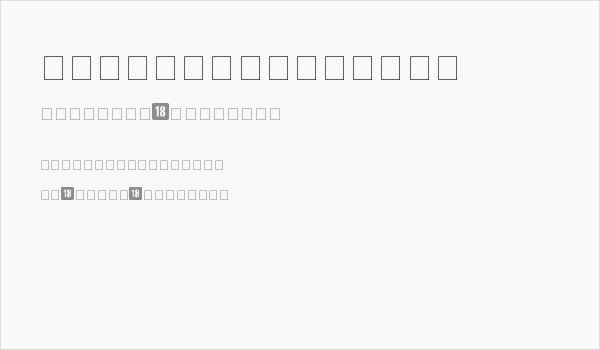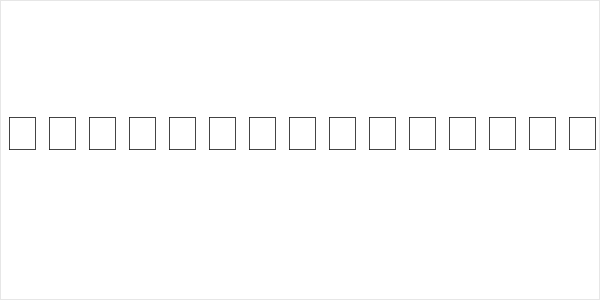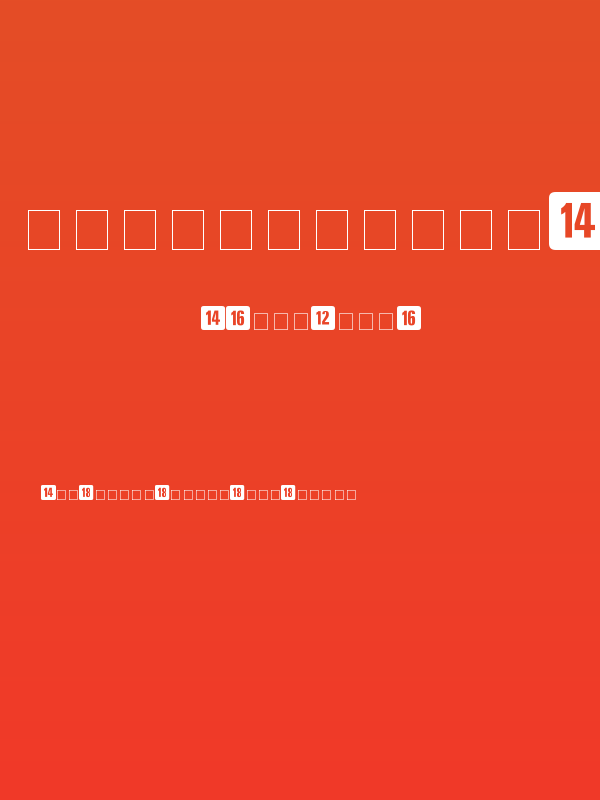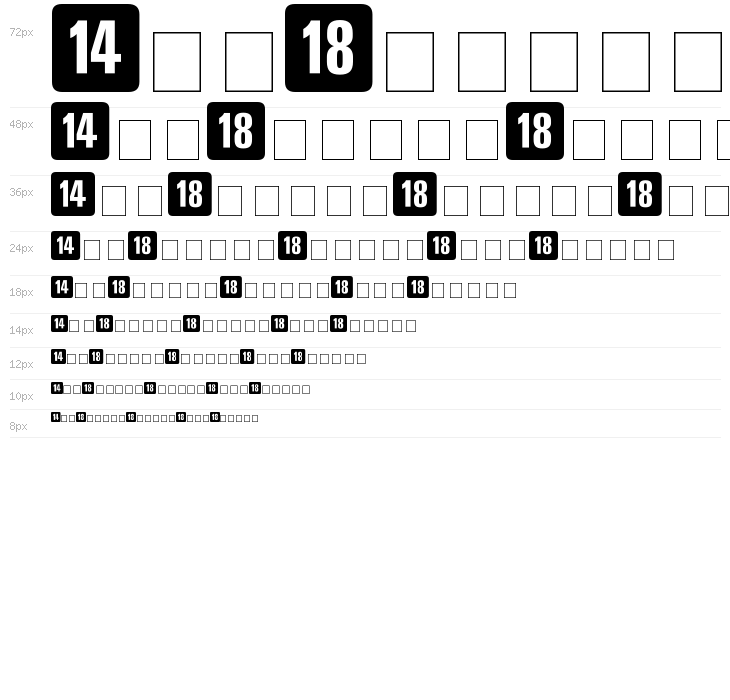
ClassIndicativa Font
ClassIndicativa Description
This font features a modern and clean design with a focus on readability and clarity. The characters are enclosed within square outlines, giving it a structured and organized appearance. The bold style of the font enhances its visibility, making it suitable for signage or instructional displays. The use of both outlined and filled blocks for letters and numbers adds a unique visual contrast, allowing for easy differentiation between characters. The font's geometric shapes and uniform spacing contribute to its professional and contemporary look.
| Use Case | Signage, Instructional displays |
| Proposed Projects | Ideal for signage, instructional displays, educational materials, and modern graphic design projects. |